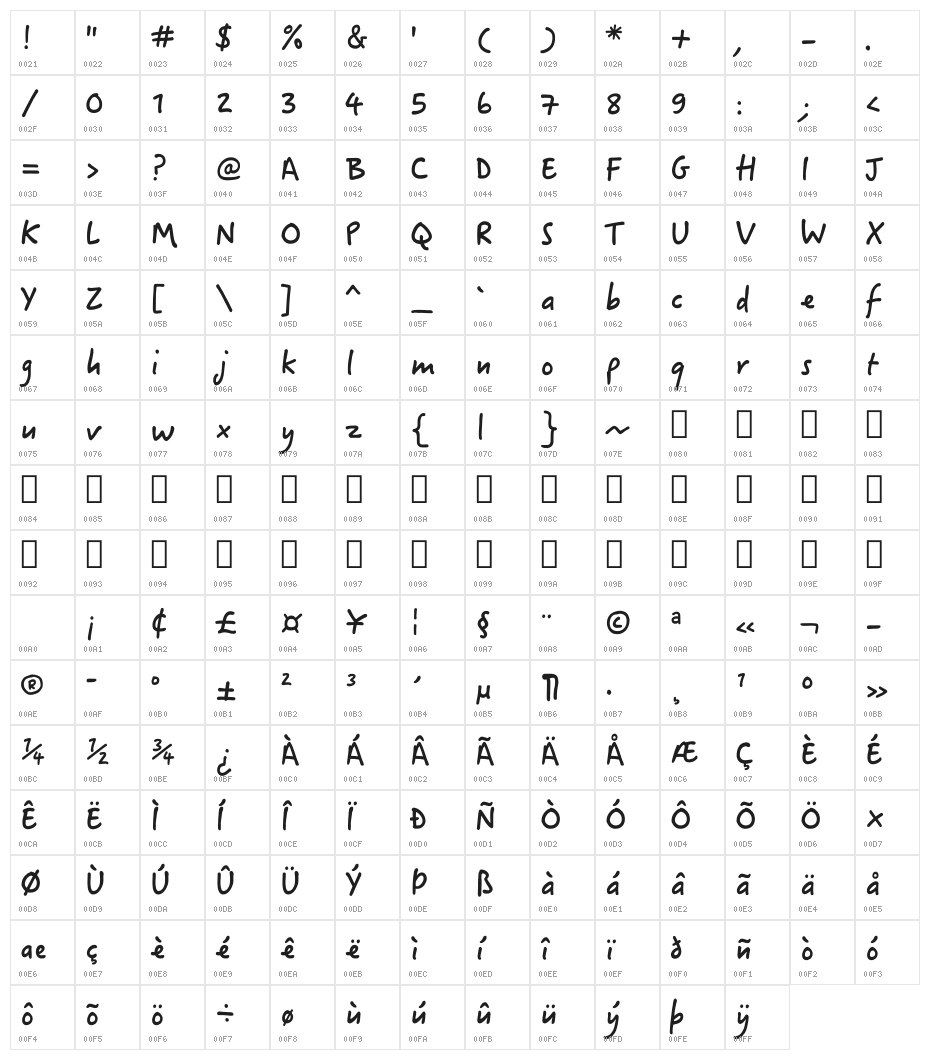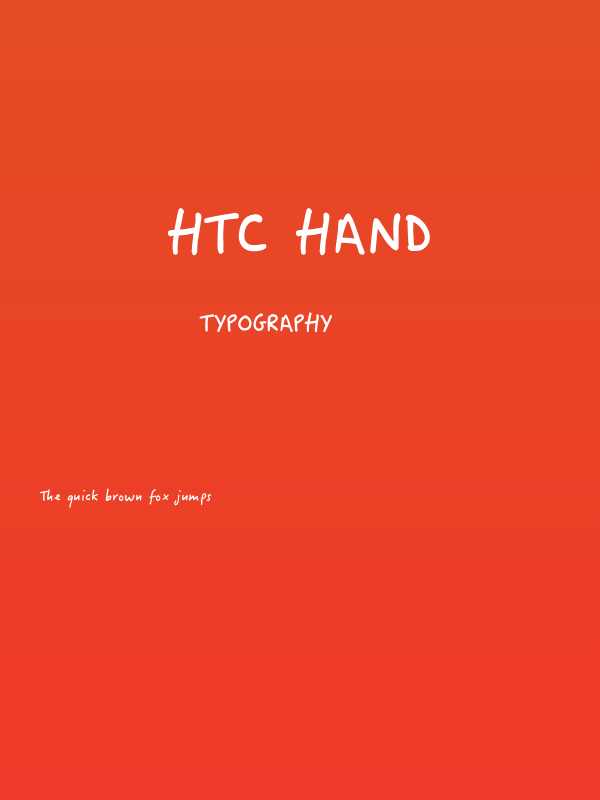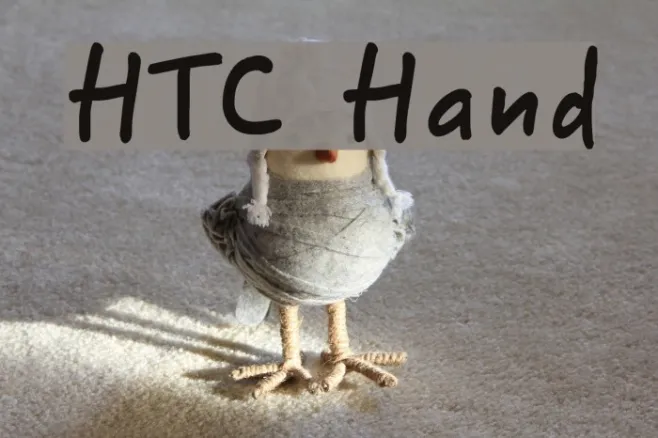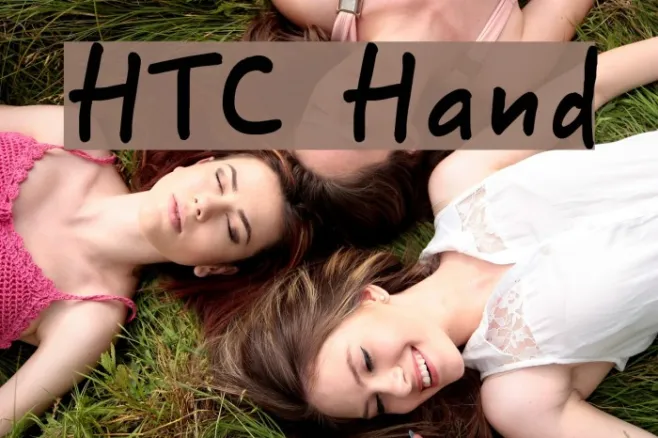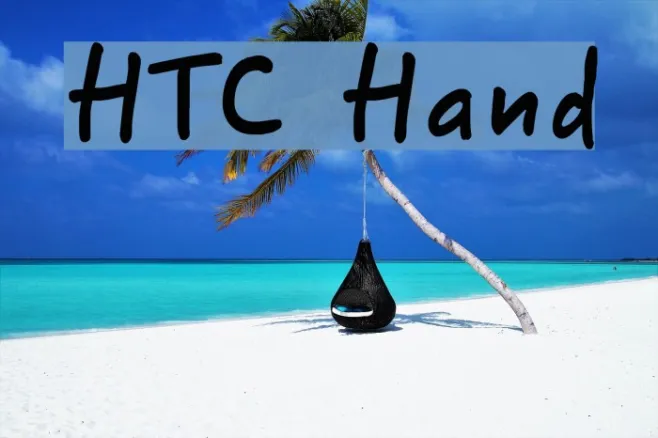
HTC Hand Font
HTC Hand Description
This font exhibits a casual, handwritten style with a playful and informal appearance. The characters are slightly slanted, giving a dynamic and lively feel. The strokes are consistent in width, providing a uniform look across all characters. The uppercase letters are bold and prominent, while the lowercase letters maintain a friendly and approachable demeanor. Numbers and special characters follow the same handwritten aesthetic, making them blend seamlessly with the alphabet. The overall design is reminiscent of personal notes or casual invitations, adding a touch of personality to any text.